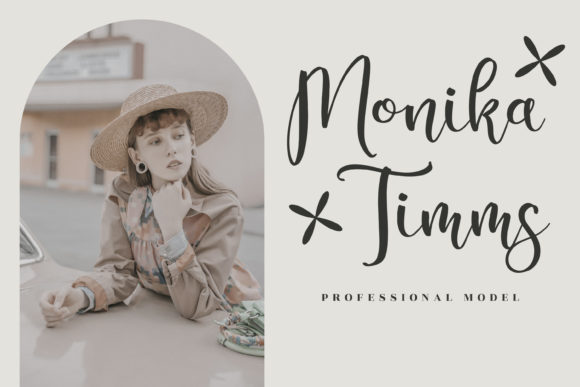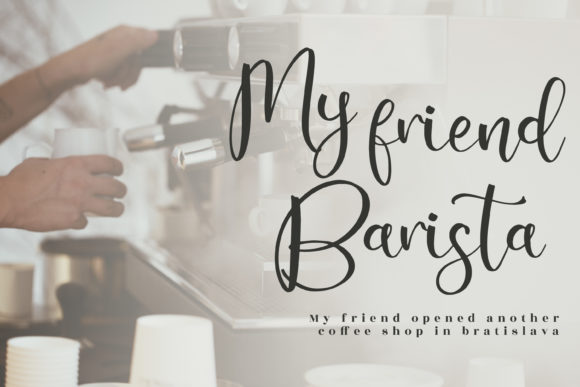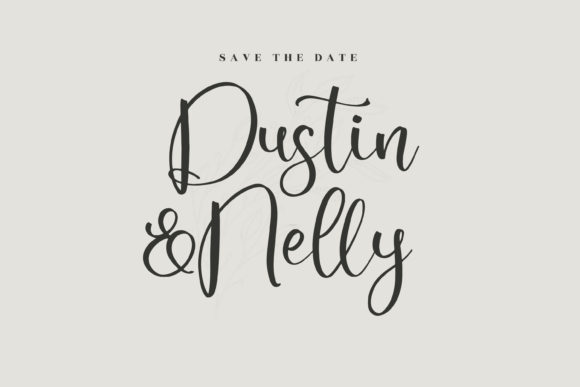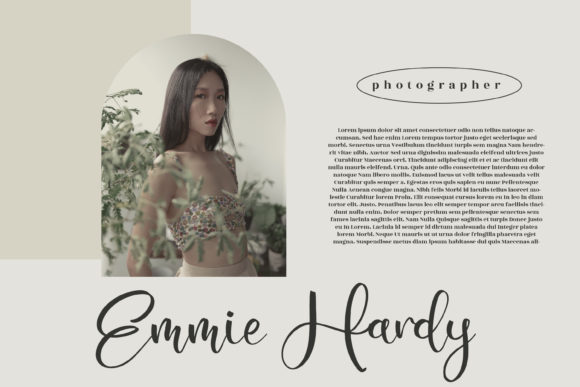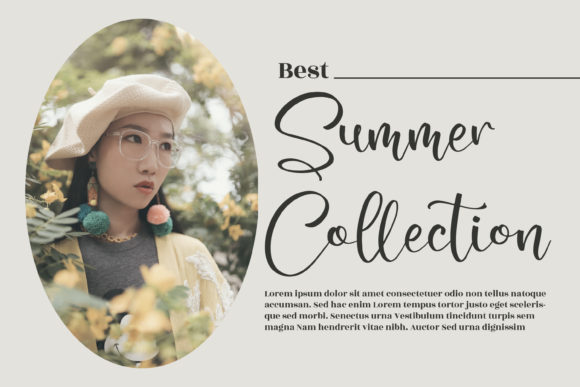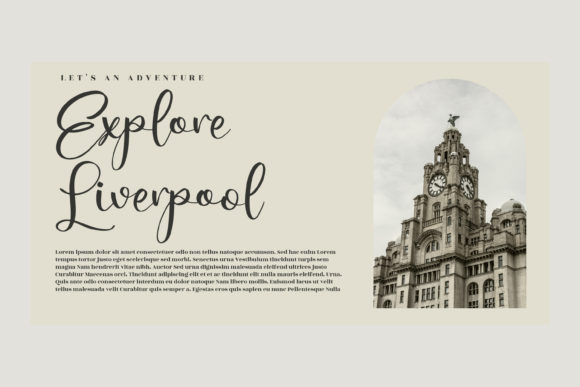
Introducing Amalia Font: Elevate Your Designs with Elegance and Sophistication
In the world of typography, few fonts manage to convey luxury, elegance, and sophistication as effortlessly as Amalia Font. This stunning calligraphy typeface is designed to add a touch of refinement to any design project, making it a must-have for designers, crafters, and anyone looking to elevate their creative work. With its delicate lines and dancing characters, Amalia Font is the perfect choice for those seeking to infuse their designs with a sense of high-end style.
The Unique Charm of Amalia Font
Amalia Font is characterized by its stylish and delicate calligraphy, where each character seems to dance along the baseline. This fluid movement creates a sense of dynamism and elegance, making the font perfect for a wide range of design applications, from wedding invitations and luxury branding to packaging and digital media. The font’s unique charm lies in its ability to convey a sense of sophistication and refinement, making it an excellent choice for designers looking to create high-end designs.
One of the standout features of Amalia Font is its PUA (Private Use Area) encoding. This means that users can access all the amazing glyphs and ligatures with ease, allowing for greater flexibility and creativity in design. With PUA encoding, designers can effortlessly navigate the font’s extensive character set, including swashes, alternates, and ligatures, to create truly unique and eye-catching designs.
Amalia Font offers endless design possibilities, making it an incredibly versatile addition to any designer’s toolkit. Whether you’re creating:
- Luxury branding materials, such as logos, business cards, and letterheads
- Wedding invitations, save-the-dates, and other event materials
- Packaging designs for high-end products
- Digital media, including social media graphics and website headers
Amalia Font is the perfect choice for adding a touch of elegance and sophistication. Its delicate lines and dancing characters will add a level of refinement to your designs, setting them apart from the ordinary.
Why Designers and Crafters Love Amalia Font
Designers and crafters love Amalia Font for its unique combination of style, elegance, and versatility. Here are just a few reasons why:
- Ease of use: With PUA encoding, accessing the font’s extensive character set is a breeze
- Flexibility: Amalia Font can be used for a wide range of design applications, from print to digital media
- Unique style: The font’s delicate lines and dancing characters create a truly unique and eye-catching look
- Luxury feel: Amalia Font is perfect for creating high-end designs that exude sophistication and refinement
In conclusion, Amalia Font is a stunning calligraphy typeface that is sure to elevate any design project. With its delicate lines, dancing characters, and PUA encoding, this font offers endless design possibilities for designers and crafters. Whether you’re looking to create luxury branding materials, wedding invitations, or packaging designs, Amalia Font is the perfect choice for adding a touch of elegance and sophistication. So why wait? Discover the beauty of Amalia Font today and take your designs to the next level!